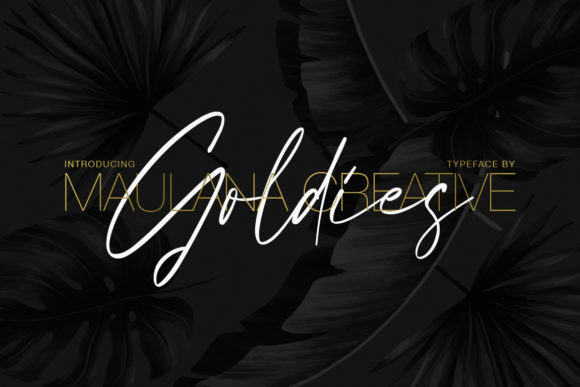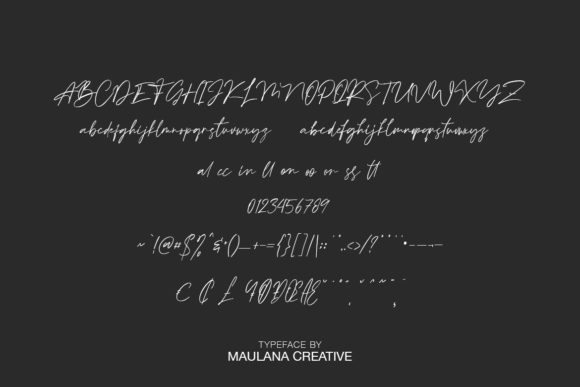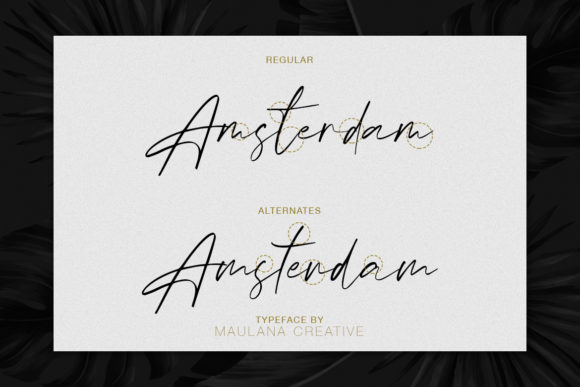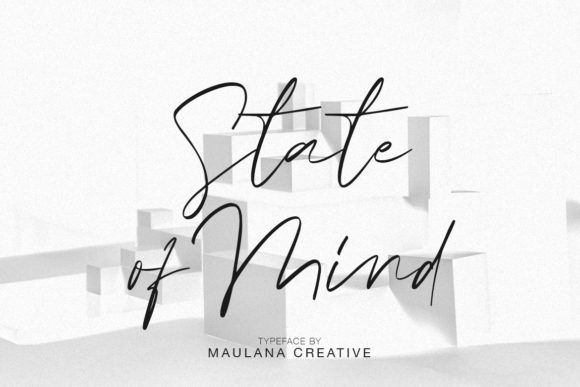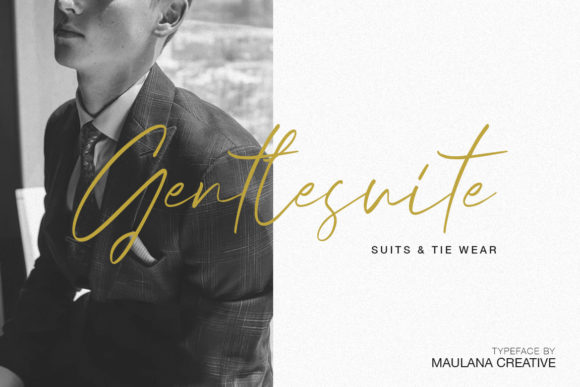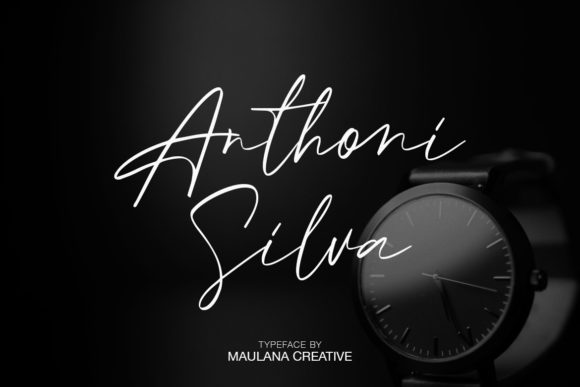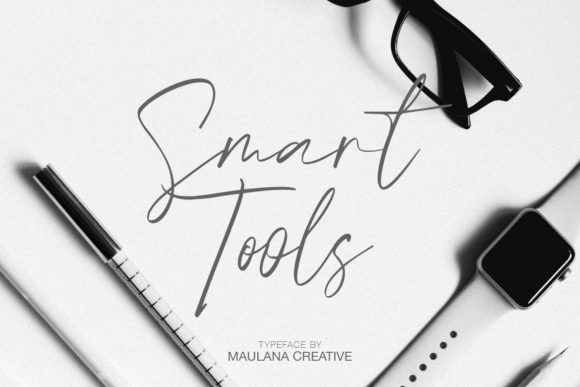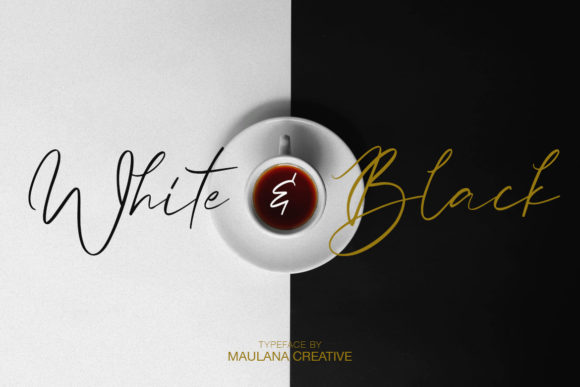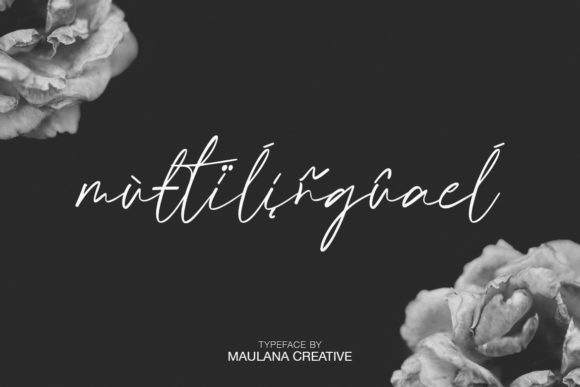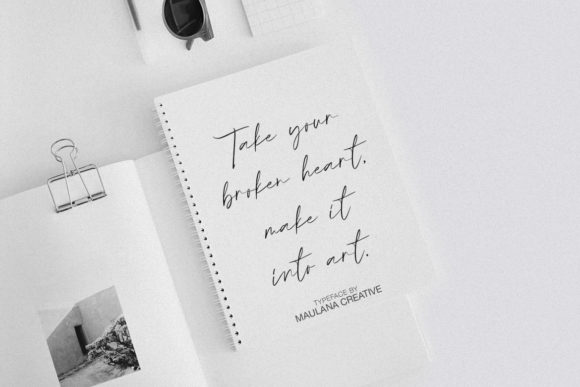
HomeScript FontsGoldies Signature Font Script Fonts Goldies Signature Font FacebookXPinterestWhatsApp Goldies Signature Font Poster 2 Goldies Signature Font Poster 3 Goldies Signature Font Poster 4 Goldies Signature Font Poster 5 Goldies Signature Font Poster 6 Goldies Signature Font Poster 7 Goldies Signature Font Poster 8 Goldies Signature Font Poster 9 Goldies Signature Font Poster 10 About Goldies Signature Font Goldies is a gorgeous and authentic script font full of life. Get inspired by its authentic charm! DOWNLOAD ON CREATIVE FABRICAThis font is sold and delivered by Creative Fabrica. Font Canyon may earn a commission if you buy through this link. People also explored Royalister Font Platinum Evelyn Duo Font Kharisma Monogram Font Sarinah Script Font Sa Pulgia Font Magazine Font Youth Syndicate Font Hoop Font Maharani Font 314 0 TagsGoldies Signature Font Previous articleBakira FontNext articleAprilra Font LEAVE A REPLY Cancel reply Comment: Please enter your comment! Name:* Please enter your name here Email:* You have entered an incorrect email address! Please enter your email address here Website: Save my name, email, and website in this browser for the next time I comment. Personal Use Free Hello Ketta Personal Use Free Read more about this font No Virus Personal Use Free Read more about this font Wanita Cantik Personal Use Free Read more about this font Cute Butterfly Personal Use Free Read more about this font BLOG Top 7 Google Fonts Alternatives for Faster and Privacy-Friendly Web Design (2025) Top 7 Google Fonts Alternatives for Faster and Privacy-Friendly Web Design (2025) When it comes to web typography, Google Fonts has long been the go-to... How to Cut Any Font on Cricut: Convert a Font to SVG (Free) Free vs Paid Fonts: Why Investing in Premium Fonts Is Worth It How to Install and Use Fonts on Windows, macOS, and Web Projects